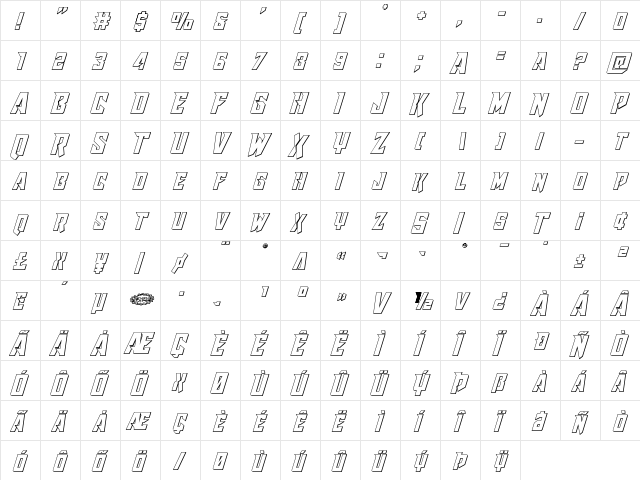
Raider Crusader Outline Outline
Design Context for Raider Crusader Outline Typeface
Raider Crusader Outline is built around its visual character rather than neutral utility — its distinctive forms are designed to make an impression at display sizes.
Font Pairing: Pair with a clean neutral sans-serif for body copy to let Raider Crusader Outline's character lead without overwhelming the composition.
Pro Tip: Use Raider Crusader Outline exclusively at display sizes — it was designed to be seen, not read at length. Let a neutral companion handle body copy.